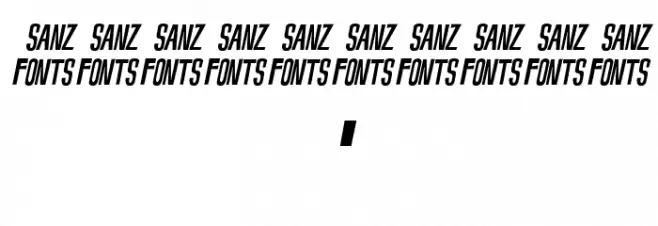
Noveey Italic Font
Noveey Italic Description
This font features a bold and dynamic style with a distinct italic slant, giving it a sense of motion and energy. The uppercase letters are tall and narrow, with sharp angles and clean lines that create a modern and sleek appearance. The lowercase letters maintain the same angular style, ensuring consistency throughout the typeface. The numbers are similarly styled, providing a cohesive look across all characters. The overall design is highly legible, making it suitable for various applications where clarity and impact are essential. The font's boldness and italic nature make it stand out, ideal for capturing attention in headlines or branding materials.
A bold, italic font with sharp angles and a modern, dynamic style from Uncategorized fonts.
- Proposed Projects: Ideal for branding, advertising, headlines, and any project requiring a bold, attention-grabbing typeface.
- Character Spacing: Tight
- Use Case: Headlines, Logos, Branding